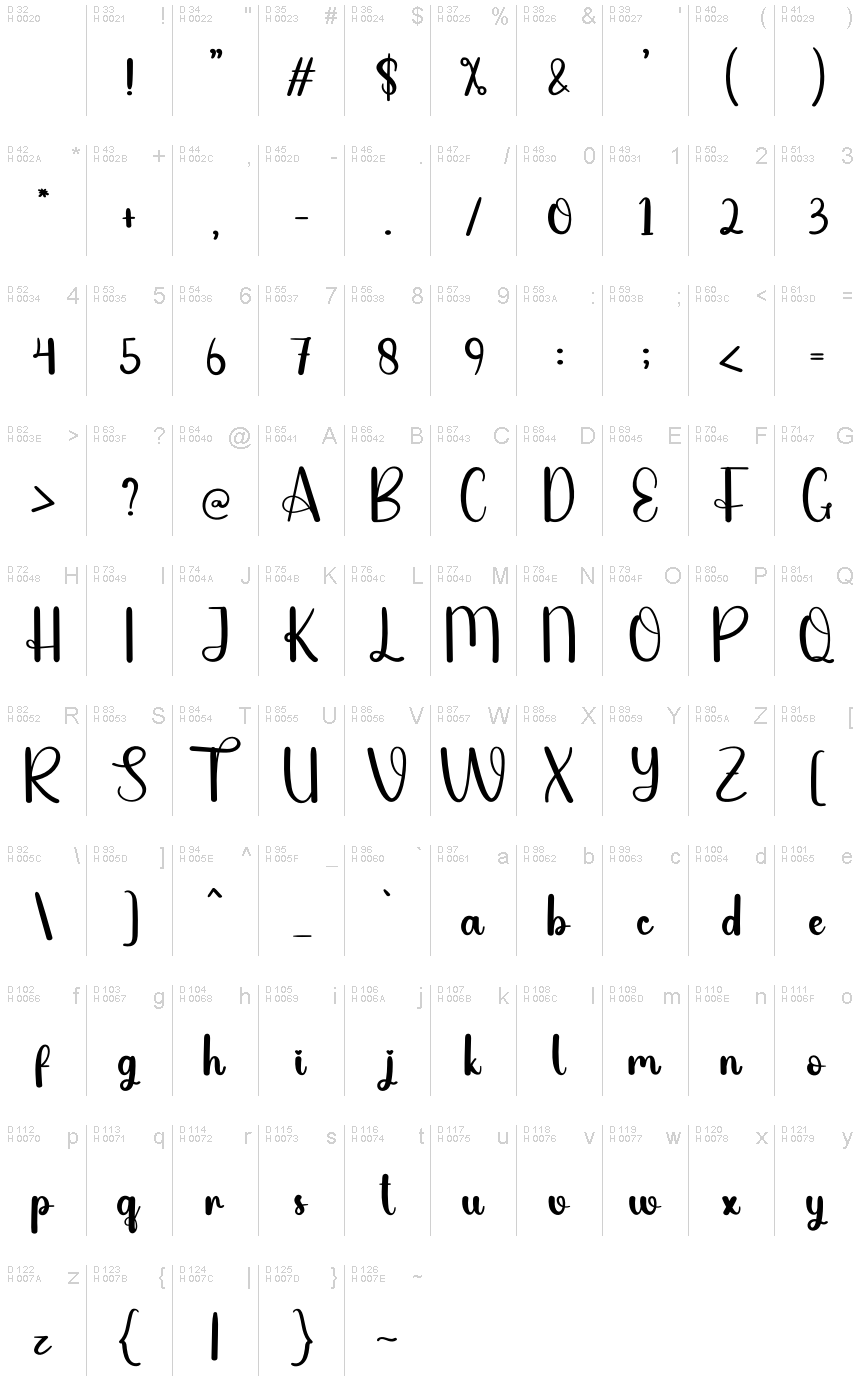
Olympic
Olympic is a striking handwritten font crafted by designer Andi Moz. Its bold, sweeping strokes and dynamic curves convey a sense of energy and movement, while the organic flow of the letterforms lends a touch of artistry and charm. Olympic's versatility shines through, making it a compelling choice for a range of design applications, from branding and packaging to editorial layouts and event materials.
Its distinctive character and visual impact ensure that any project infused with the Olympic font will captivate the eye and leave a lasting impression.